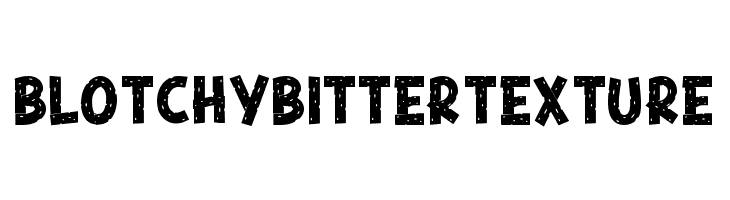
A bold, playful font with cartoonish and energetic characters.
A bold, modern sans-serif font with excellent readability and uniform design.
A modern, geometric sans-serif typeface with balanced spacing and uniform stroke width.
A bold, Western-style font with blocky, decorative characters.
A bold, futuristic font with sharp angles and an oblique slant.
Ornamental display font with Easter egg illustrations as glyphs.
A bold, chiseled font with sharp edges and decorative serifs.
A lively, cursive font with a playful, handwritten style.
A bold, 3D sans-serif font with a modern, geometric style.
A playful, bold font with rounded, decorative letterforms.
设计师偏爱 DRAGONKIDSBROKE, Fineness Pro Bold Cond, MDGROTESQUE Regular, Fat Cowboy Regular and Energon Oblique,因为其造型干净、适用范围广—— 从品牌识别到落地页、海报都能胜任。